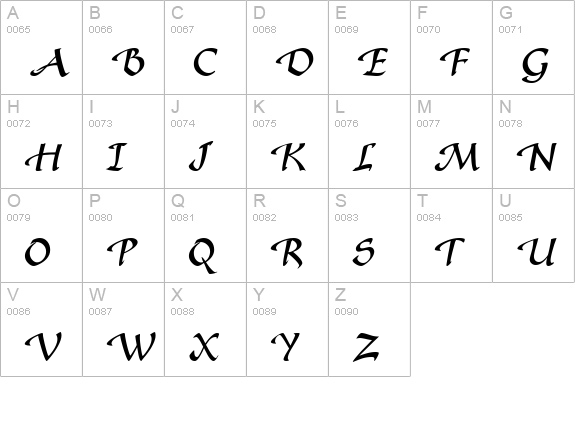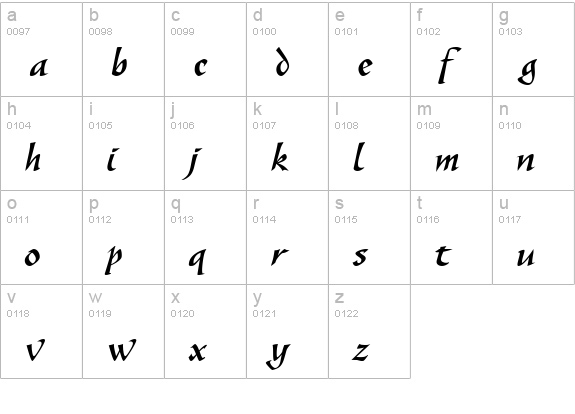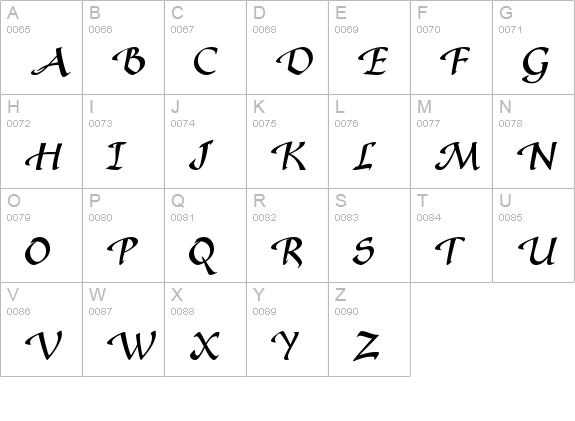
Gaze Bold is a strong, high-contrast variant in the Gaze typeface family \xE2\x80\x94 well suited to headlines, attention-grabbing titles, and strong calls-to-action.
Introducing Gaze Bold font, a stunning display typeface that exudes elegance and sophistication. With its bold and eye-catching design, Gaze Bold is perfect for creating impactful headings, titles, and logos. The clean lines and modern aesthetic of this font make it a versatile choice for a wide range of design projects. Best of all, Gaze Bold is available for free download at FontsMarket.com. Whether you're a professional designer looking to add a touch of flair to your work or a hobbyist seeking a stylish font for personal projects, Gaze Bold is sure to impress. Don't miss out on this opportunity to elevate your designs with this beautiful and striking font. Download Gaze Bold today and let your creativity shine!